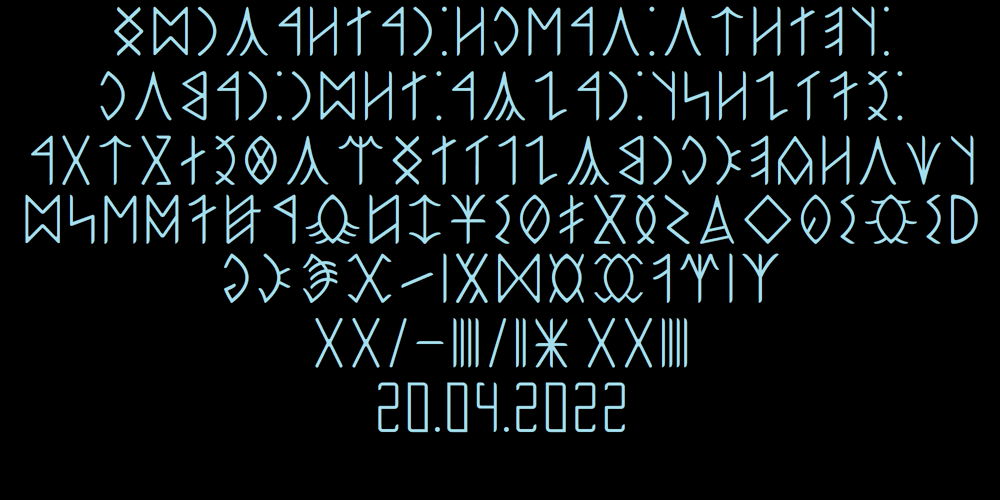
Ongunkan Old Hungarian Runic Font Family was designed by Osman Nuri ALKAN and published by Runic World Tamgacı. Ongunkan Old Hungarian Runic contains 1 styles and family package options. It was used in parts of Transylvania until the 1850s, although it was banned by Istvan, the first Christian king of the Hungarians (Szekel), in line with an order to “destroy all pre-Christian inscriptions”. Hungarian runic script was usually written on wood-stone pieces in the bustrofedon style. In this method, the writing was written consecutively from right to left and from left to right. This article is available in Bosnian, Carpathian and Glozel editions. Whenever possible, I will present the fonts in these versions.